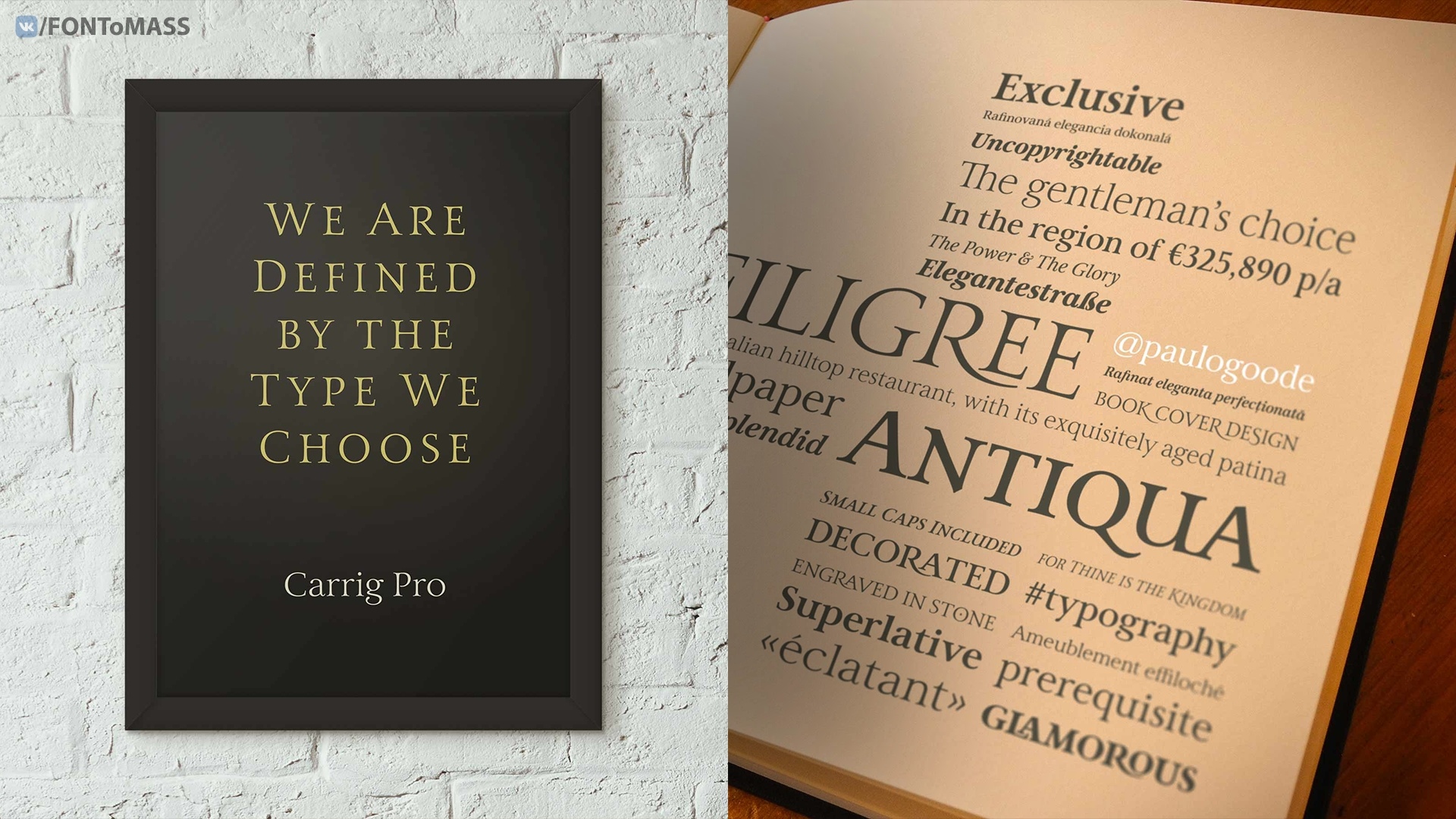
Carrig Pro Font
Carrig Pro Font is perfect for Irish cultural festivals, Celtic heritage projects, traditional Gaelic publications, Irish tourism materials, authentic pub branding, Celtic music promotions, traditional craft exhibitions, heritage museum displays, Irish dance performances, and authentic Celtic cultural communications.
What makes Carrig Pro Font so exciting is its authentic embodiment of Irish cultural heritage and Celtic artistic tradition that captures the rugged beauty of Ireland's landscape and the enduring spirit of Gaelic culture through thoughtfully crafted typography. This culturally rooted typeface features sturdy letterforms with Celtic-inspired proportions and Irish heritage-influenced character variations that immediately convey tradition, authenticity, and the transformative power of cultural preservation. The font's Celtic construction and heritage-focused aesthetic create an instant sense of Irish authenticity and cultural pride, making it ideal for projects that need to communicate Celtic tradition, Irish cultural heritage, and the life-enriching power of cultural connection to audiences seeking authentic Irish experiences and meaningful Celtic cultural engagement.
The Carrig Pro Font family typically includes multiple traditional weights and Celtic styles, often featuring light through bold variations along with authentically flowing italic versions and culturally appropriate alternatives. Irish font collections frequently offer extensive character sets including Celtic symbols, traditional ornaments, and Gaelic decorations that enhance the authentic Irish aesthetic and provide designers with comprehensive tools for creating genuinely respectful and culturally appropriate communications.
The Celtic nature of Carrig Pro Font makes it particularly effective for targeting demographics that value Irish cultural heritage and Celtic tradition in their cultural and lifestyle choices. Cultural tourism marketers and Irish heritage preservationists will find this font especially valuable for materials that must establish immediate cultural credibility and connect with audiences seeking authentic Celtic experiences and meaningful Irish cultural engagement.
What sets Carrig Pro Font apart is its ability to convey Celtic authenticity while maintaining the professionalism necessary for effective contemporary communication and cultural promotion. This balanced characteristic makes it suitable for both traditional Irish cultural applications and modern Celtic heritage contexts where projecting cultural authenticity and maintaining contemporary appeal must work together harmoniously.
Professional designers recognize that Carrig Pro Font brings invaluable Celtic credibility to projects across industries including cultural tourism, heritage preservation, traditional crafts, and Irish cultural services. Its traditional character and Celtic appeal make it essential for organizations whose mission centers on preserving Irish culture, promoting Celtic heritage, and creating meaningful connections between traditional Gaelic values and contemporary cultural appreciation.
The thoughtfully crafted cultural authenticity of Carrig Pro Font ensures consistent Celtic messaging across all Irish-focused communication applications while honoring the fundamental importance of cultural respect and authentic representation in Celtic typography.